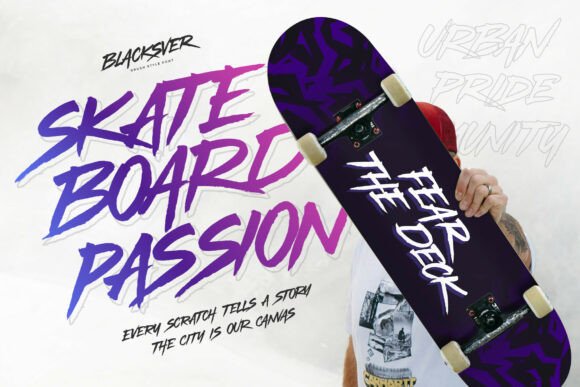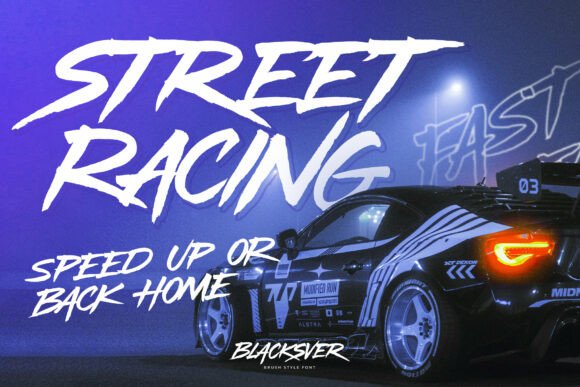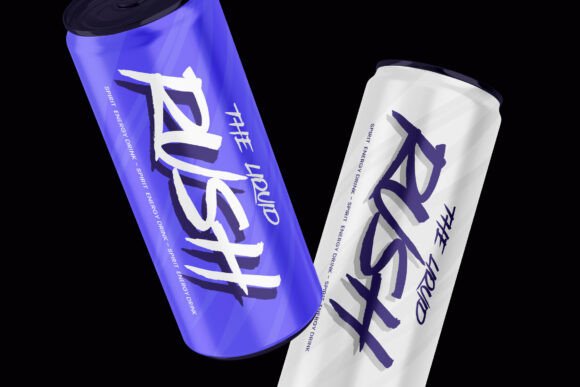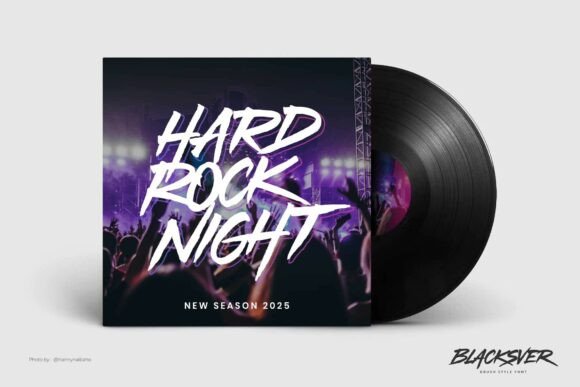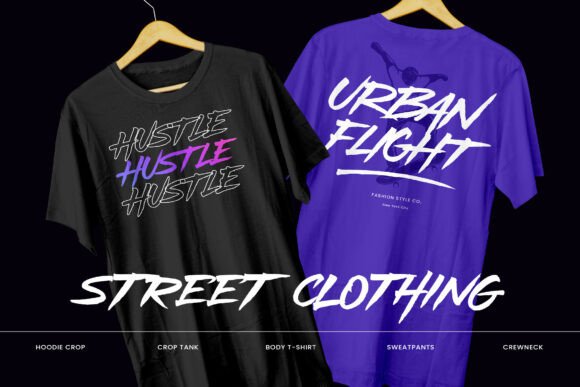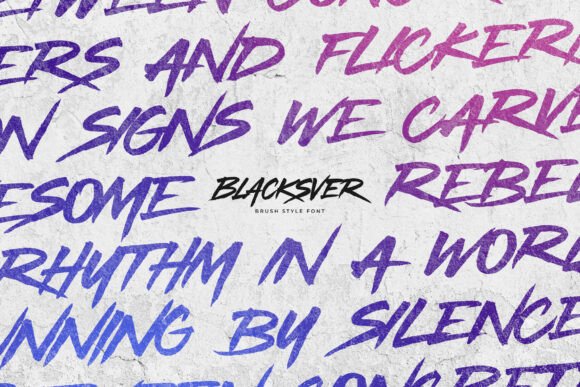
Unleash Bold Expression with Blacksver Font: The Fearless Brush Typeface
In the world of typography, few fonts dare to be different, to challenge the status quo, and to make a statement. But Blacksver Font is not just any font – it’s a revolution in type design. Born out of chaos and crafted with punch, Blacksver is a fearless brush typeface that roars, rebels, and redefines the very essence of bold expression.
The Birth of Blacksver: A Story of Rebellion
Blacksver Font was created for those who refuse to be bound by conventional design rules. It’s for the rebels, the outcasts, and the creatives who crave something raw and unfiltered. This font is not just a collection of letters; it’s an attitude, a vibe, and a way to make a statement. Whether you’re designing for music, streetwear, or any project that demands raw emotion, Blacksver brings an untamed energy that’s hard to ignore.
What Makes Blacksver Unique?
- Fearless and Bold: Blacksver is not for the faint of heart. It’s a font that dares to be loud, to be bold, and to make a statement. Every stroke is a declaration of independence from the ordinary.
- Brush-Type Design: Crafted with a brush, Blacksver carries the imperfections and organic feel that only hand-crafted typography can offer. This gives it a unique texture and personality that’s hard to replicate with digital fonts alone.
- Versatile: While Blacksver is bold and fearless, it’s also surprisingly versatile. It can be used in a variety of contexts, from streetwear designs and music posters to bold headlines and impactful quotes.
- Emotional Connection: Blacksver doesn’t just convey a message; it evokes an emotional response. It’s for those moments when you want to stir something within your audience – be it excitement, rebellion, or a sense of belonging to something bigger.
How to Use Blacksver Font Effectively
Using Blacksver effectively is all about understanding its strengths and leveraging them to enhance your design. Here are a few tips:
- Pair it with Simplicity: Blacksver is bold and attention-grabbing. Pair it with simpler fonts or clean backgrounds to let it shine without overwhelming the viewer.
- Experiment with Colors: While Blacksver looks striking in black, don’t be afraid to experiment with colors. Bright, bold colors can enhance its impact and make it even more eye-catching.
- Play with Texture: Since Blacksver has a brush-textured feel, consider incorporating other textures or elements that complement its organic nature.
- Use it Sparingly: Due to its bold nature, Blacksver is best used sparingly. Use it for headlines, key messages, or to draw attention to specific parts of your design.
Who is Blacksver Font For?
Blacksver Font is for anyone who wants to make a statement with their design. This includes:
- Graphic Designers: Looking for a font that can add a bold, fearless touch to their projects.
- Streetwear Brands: Seeking typography that resonates with the streetwear culture and aesthetic.
- Music Producers and DJs: Needing a font that captures the raw energy and rebellious spirit of music.
- Artists and Crafters: Who want to add a personal, hand-crafted feel to their work.
Blacksver Font is more than just a typeface – it’s a movement. It’s for those who refuse to blend in and are not afraid to stand out. With its fearless, brush-type design, Blacksver brings a raw, unfiltered attitude to your designs. Whether you’re looking to make a bold statement, evoke an emotional response, or simply add some rebellious flair to your project, Blacksver is the perfect choice. So, unleash your creativity, defy the norms, and let Blacksver roar.